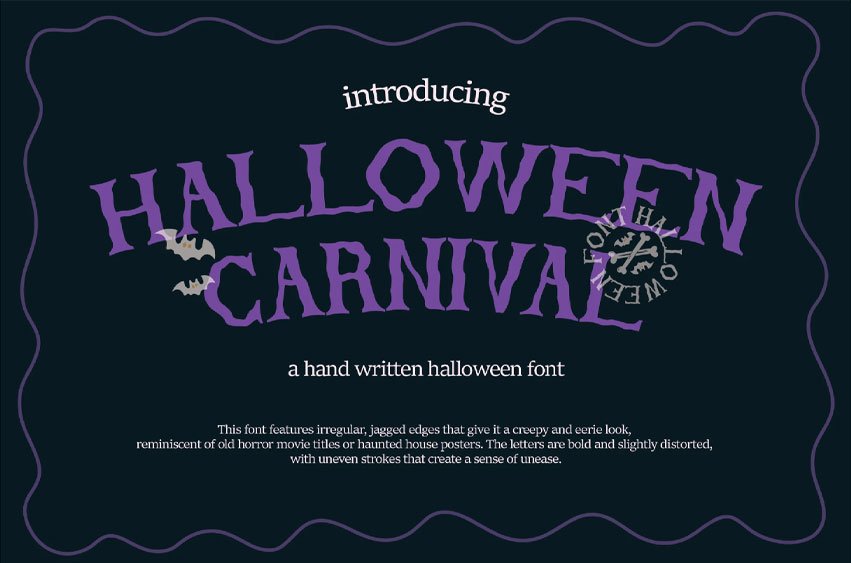
Halloween Carnival Font is a spooky and whimsical font that brings the eerie fun of Halloween to life. With its bold, jagged edges and playful yet haunting design, this font strikes the perfect balance between fright and festivity.
Ideal for Halloween-themed projects, carnival posters, or any design seeking a mix of spooky charm and carnival flair, Halloween Carnival adds a thrilling and spooky vibe to your text, making it stand out in any eerie celebration.